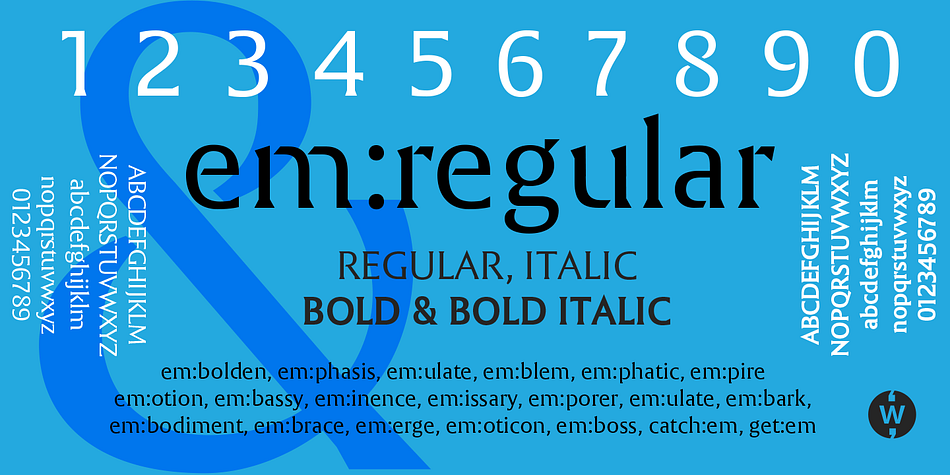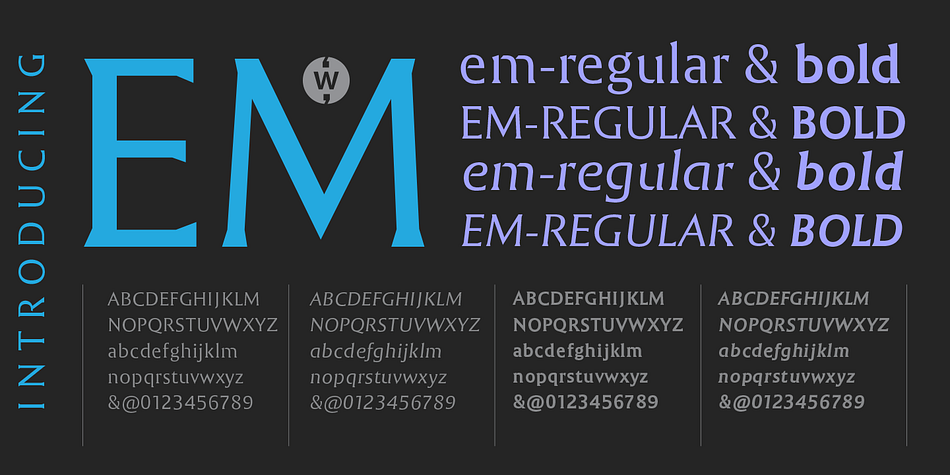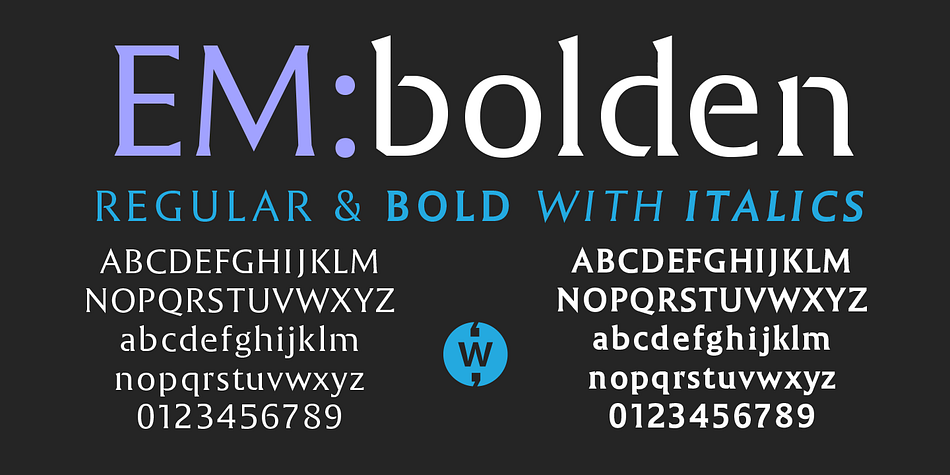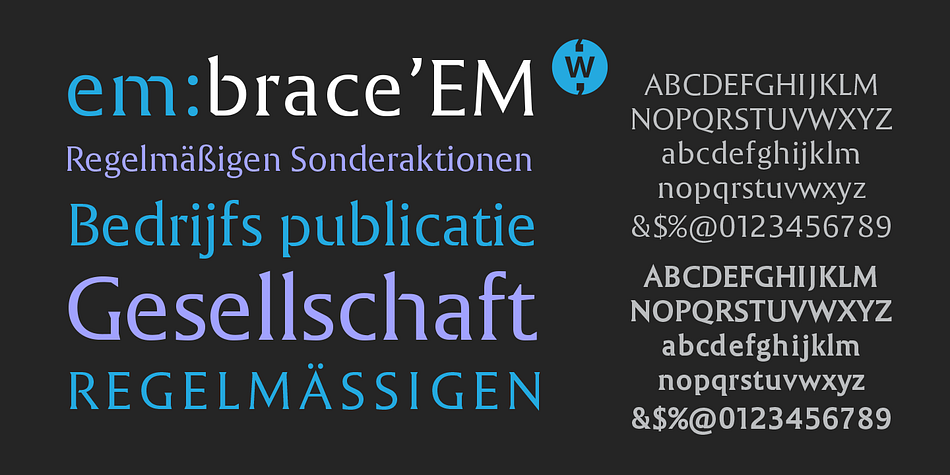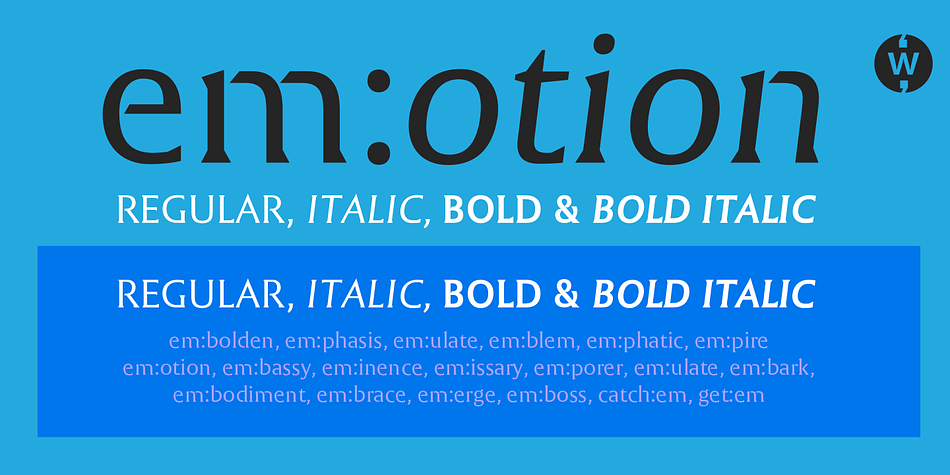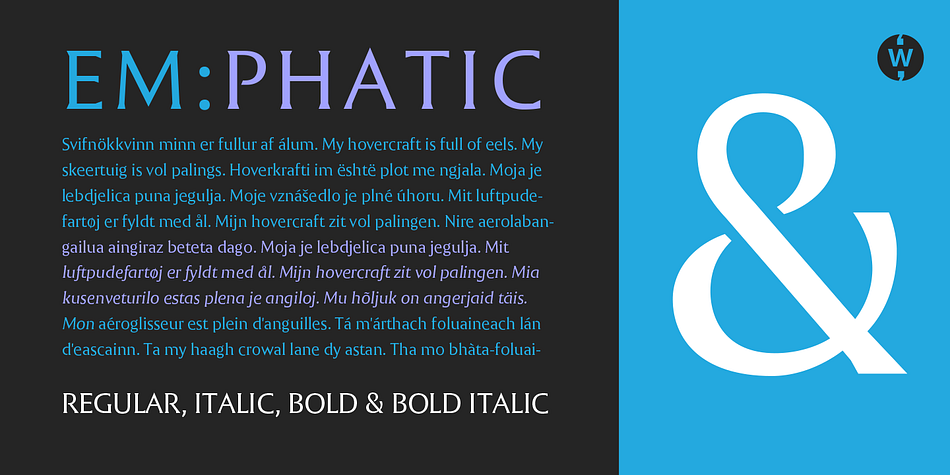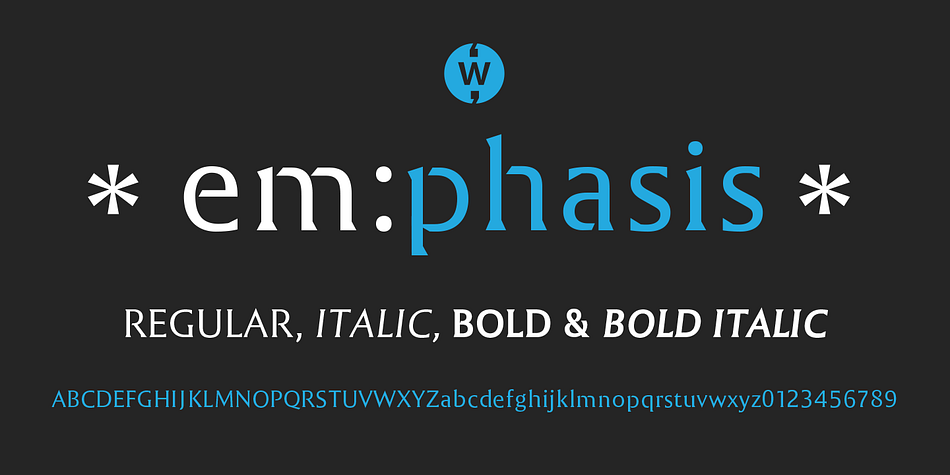
Designed by Robbie de Villiers, EM is a serif font family. This typeface has four styles and was published by Wilton Foundry.
Its time to EMbrace the new EMerging typeface from WiltonFoundry: EM consisting of EM Regular, EM Italic, EM Bold, EM Bold Italic. Loosely based on our very popular Cyan typeface, EM is EMphatically the most distinctive and modern typeface we’ve created yet. Slight variations between thick and thin with stenciled effects, and Flared stem EMphasis for character. Go get ’EM!!
Foundry | Wilton Foundry |
Designer | Robbie de Villiers |